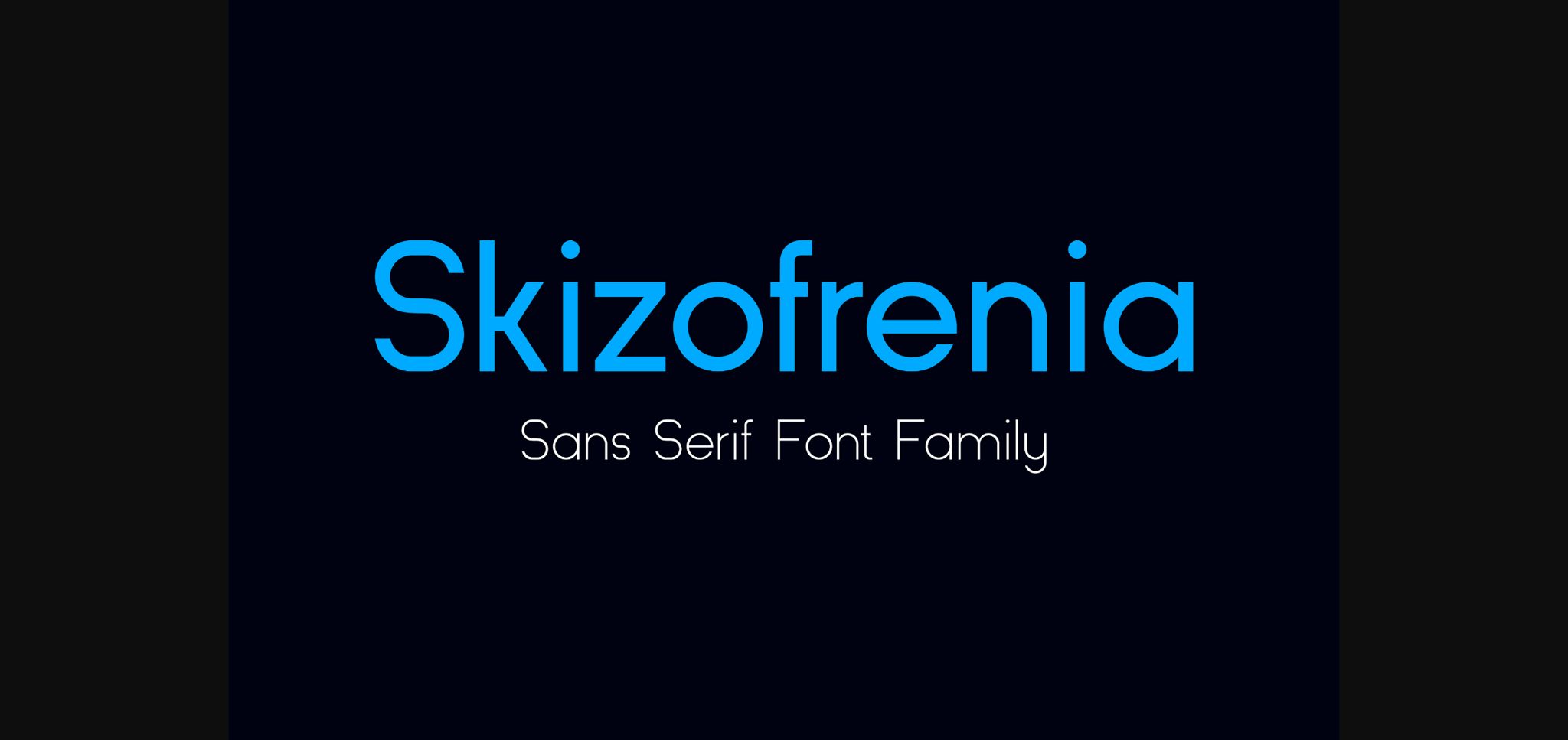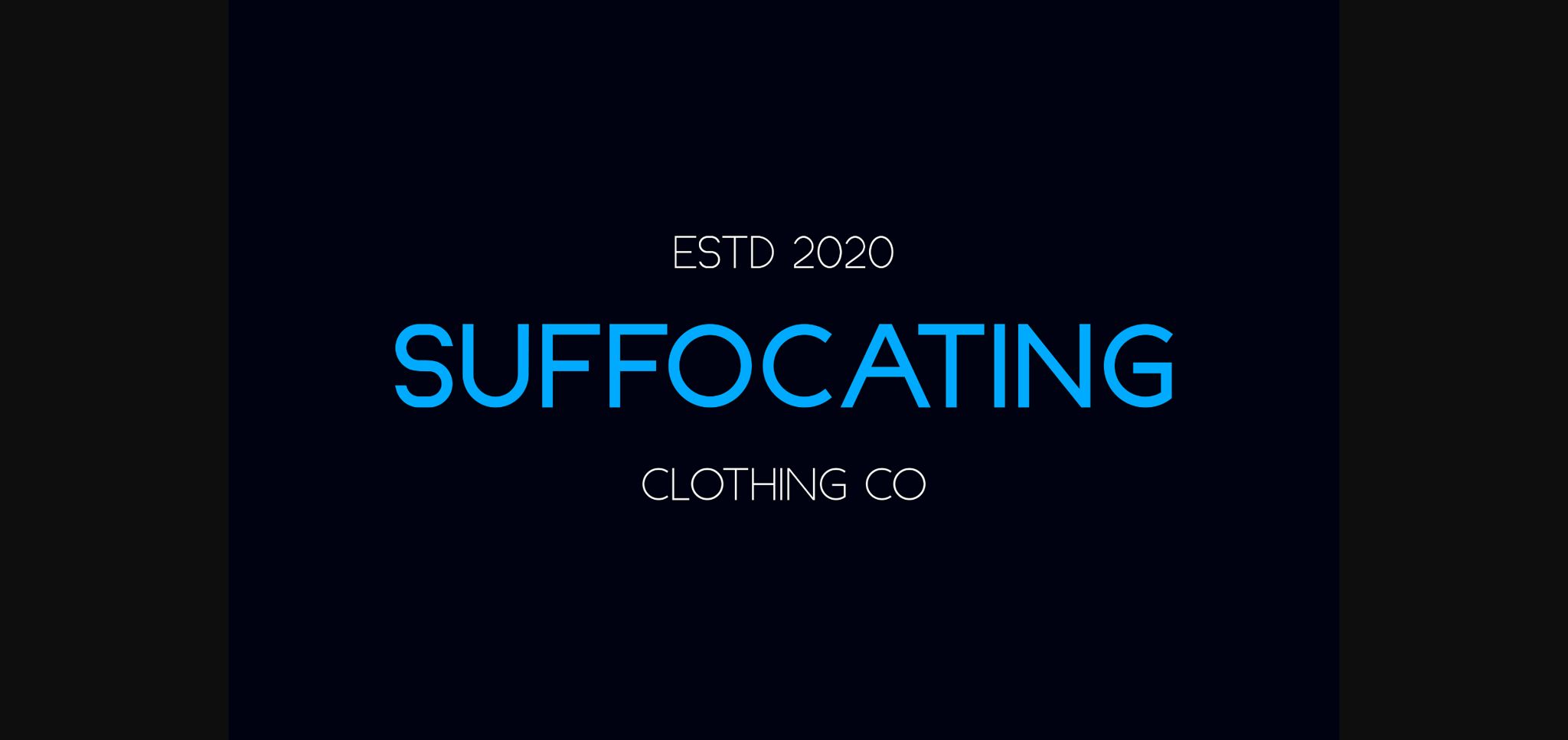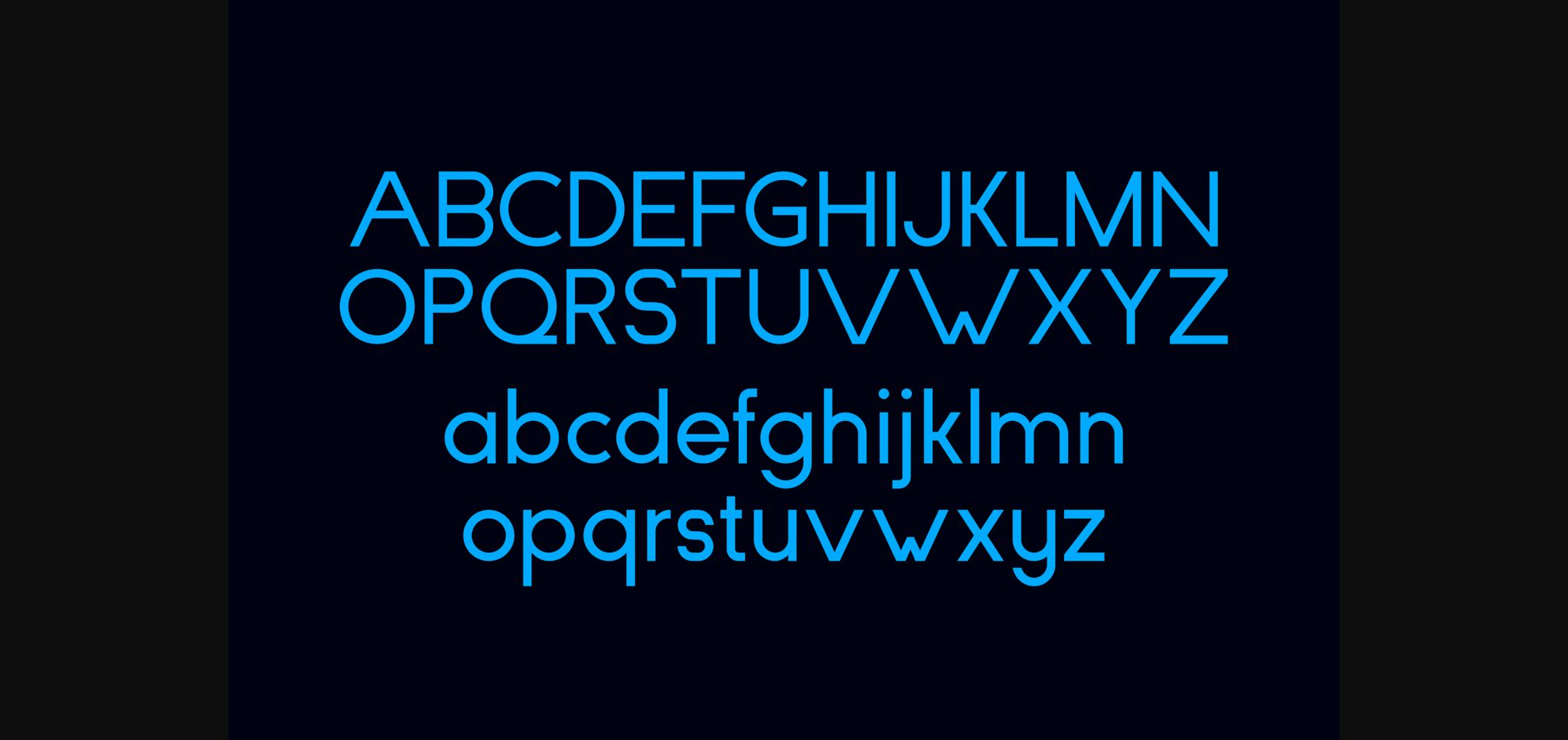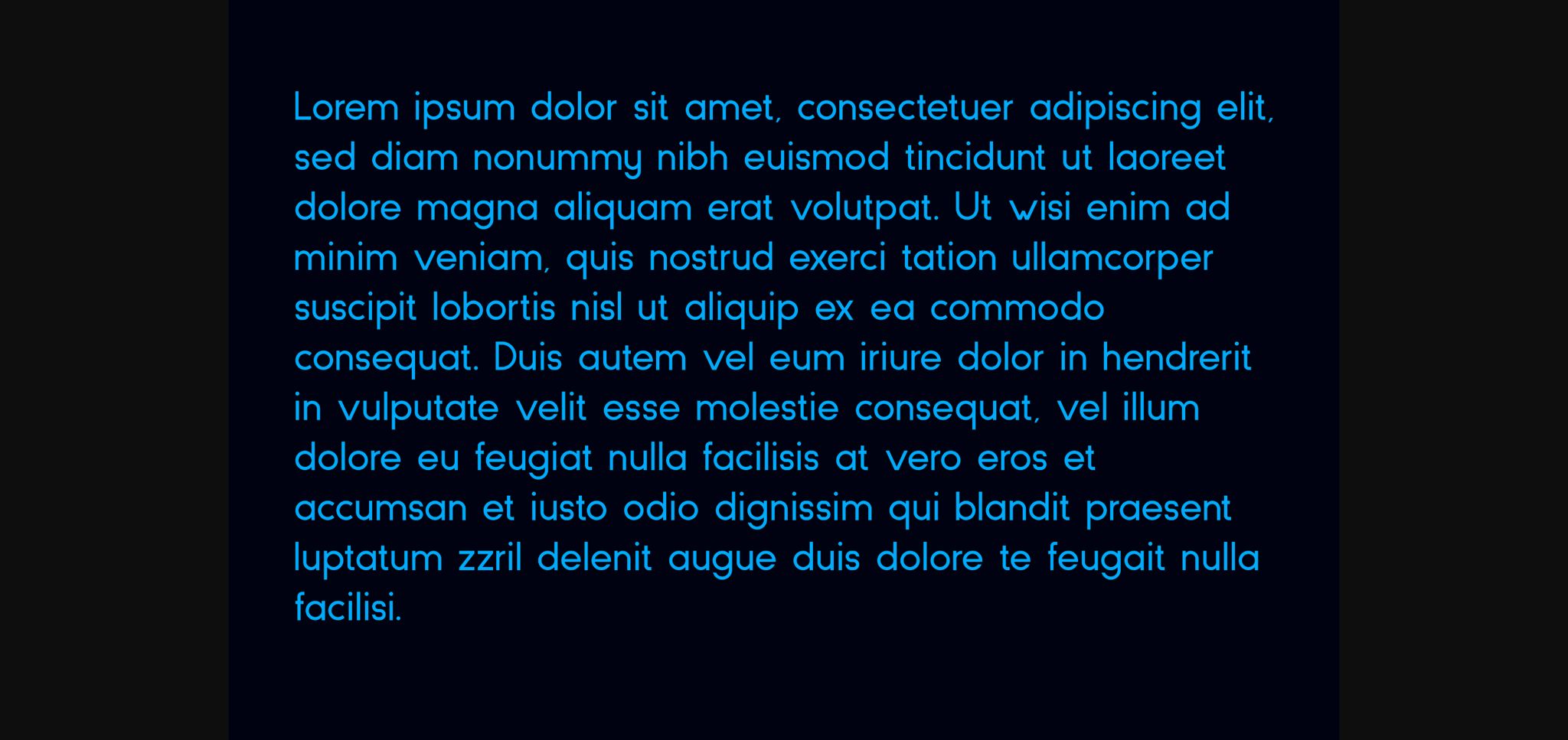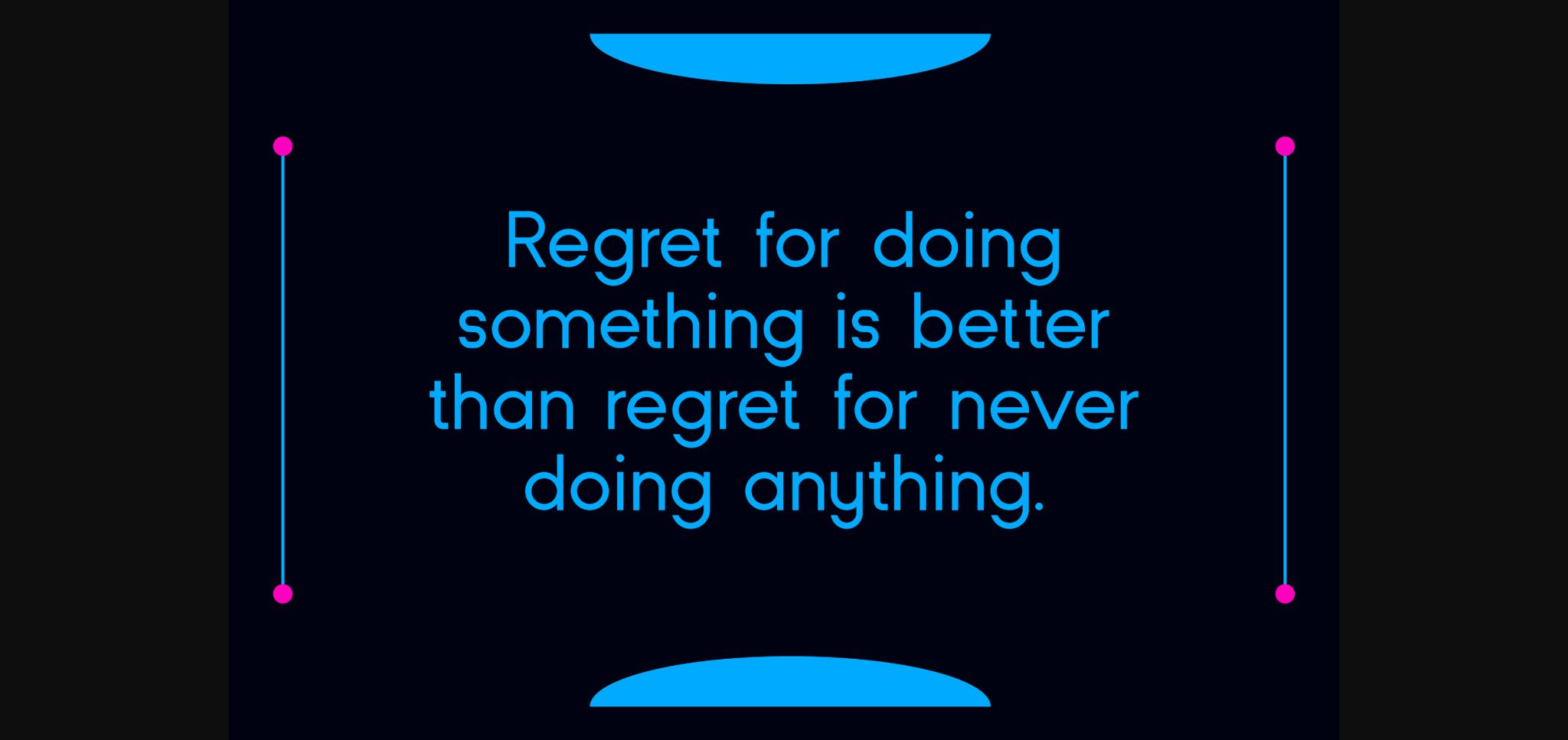
HomeSans Serif FontsSkizofrenia Font Sans Serif Fonts Skizofrenia Font FacebookXPinterestWhatsApp 1 of 7 ... Skizofrenia Font Poster 2... Skizofrenia Font Poster 3... Skizofrenia Font Poster 4... Skizofrenia Font Poster 5... Skizofrenia Font Poster 6... Skizofrenia Font Poster 7... About Skizofrenia Font Skizofrenia is a neat, clean and elegant sans serif font that can easily fit into any project idea. Add it to your designs, and notice its impact on your creations! DOWNLOAD NOW People also explored Nugo Sans Charming & Beautiful Font Signer Font Warm and Love Font Amazon Font Handy Ink Font California Font Grantsburg Font Milky Creamy Font 390 0 TagsSkizofrenia Font Previous articleNtorq FontNext articleQuentin Font LEAVE A REPLY Cancel reply Comment: Please enter your comment! Name:* Please enter your name here Email:* You have entered an incorrect email address! Please enter your email address here Website: Save my name, email, and website in this browser for the next time I comment. Personal Use Free Soria Personal Use Free Read more about this font Market Love Personal Use Free Read more about this font Little Pixel Personal Use Free Read more about this font Jilliant Personal Use Free Read more about this font BLOG 5 Fonts That Will Dominate Design Trends in 2026 5 Fonts for 2026 That Will Dominate Design Trends Typography plays a critical role in visual communication, and as we look ahead to 2026, it’s... Top 7 Google Fonts Alternatives for Faster and Privacy-Friendly Web Design (2025) Where to Buy American Fonts Online in 2024 To increase your work productivity, choose the most readable fonts.